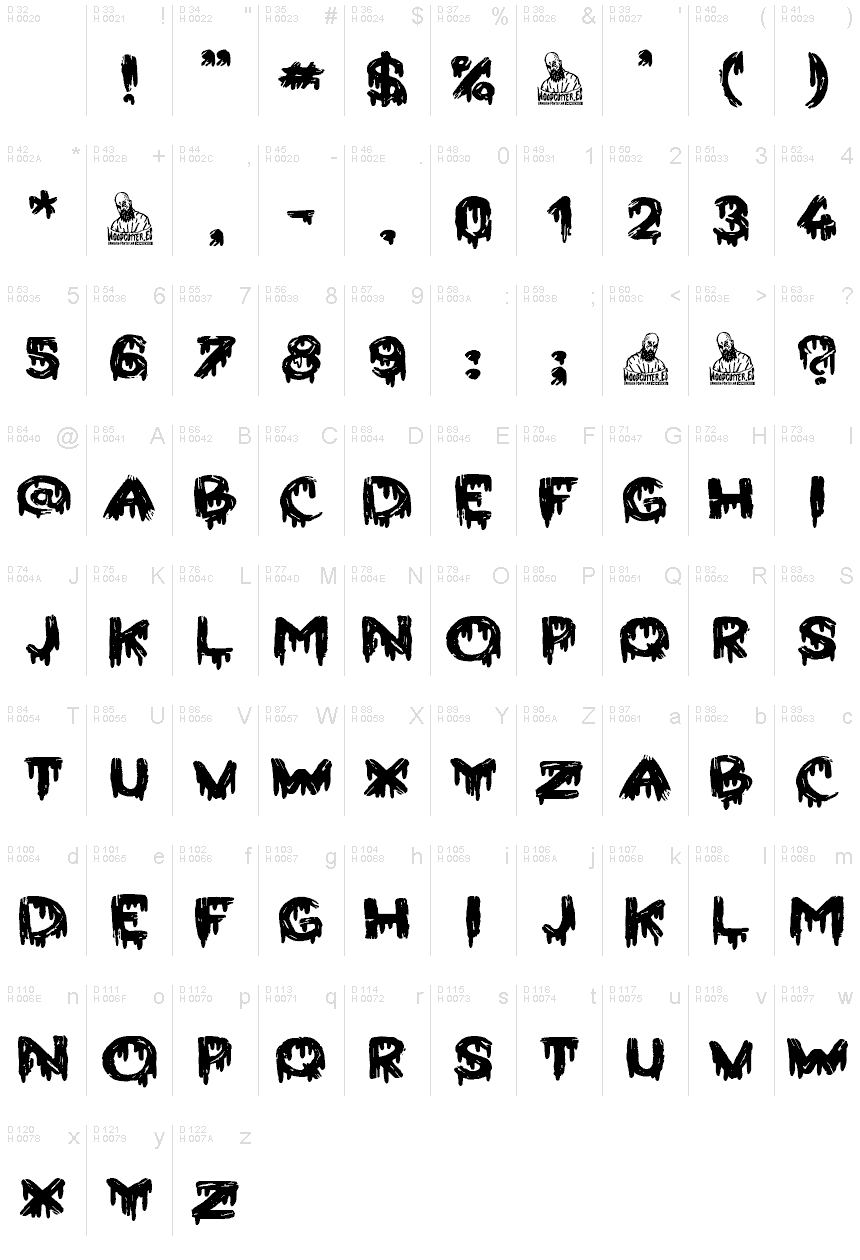
Blood 4 the People
Blood 4 the People font is a display typeface by Woodcutter. This scary expanded font is bold and entirely handwritten; a set that definitely can put all its readers on edge. Characters are written in an unreadable style with grungy textures and sharp edges giving the design idea a whole new standard of horror. All strokes appear both black and white with the irregular shapes being complemented by visible straight lines.